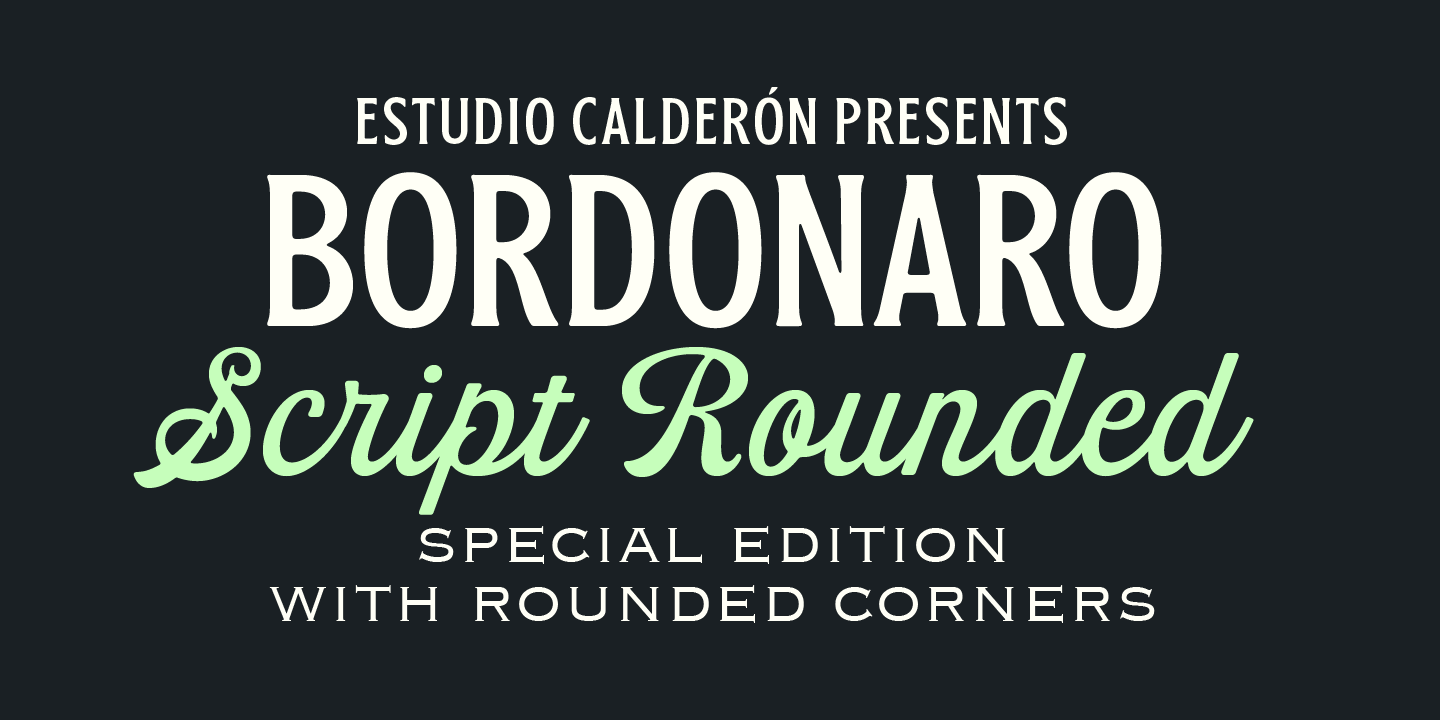
Bordonaro Script Rounded Font is perfect for friendly café branding, children's book illustrations, artisan bakery logos, handmade craft packaging, cozy boutique signage, and warm family-oriented business materials.
Bordonaro Script Rounded Font is exciting because it combines flowing script elegance with gentle rounded warmth, delivering a comforting typeface that embodies approachability, handcrafted authenticity, and the welcoming spirit of family-owned businesses.
The Bordonaro Script Rounded Font family includes welcoming variations: Bordonaro Script Rounded Regular, Bordonaro Script Rounded Bold, soft alternates, and decorative flourishes that enhance the font's friendly handwritten character.
Create warm connections with Bordonaro Script Rounded Font Free Download, a lovingly crafted typeface that brings handwritten warmth and friendly authenticity to your most welcoming design projects. This gentle font excels in creating memorable branding for neighborhood cafés, family daycare centers, local farmers markets, and artisan craft businesses that prioritize personal relationships and community connections over corporate sterility. The thoughtfully designed letterforms feature soft curves and organic flow that simulate the natural warmth of handwritten notes while ensuring excellent readability across all friendly applications. Perfect for greeting cards, children's educational materials, local business signage, and community event promotions that need to communicate approachability and genuine care, this font connects with audiences who value personal touch and authentic human connections. Each character flows with gentle kindness, making every message feel like a warm hug from a trusted friend who genuinely cares about your wellbeing. Bordonaro Script Rounded Font transforms business communications into heartfelt conversations that build lasting relationships and create loyal customers who feel like cherished members of an extended family.